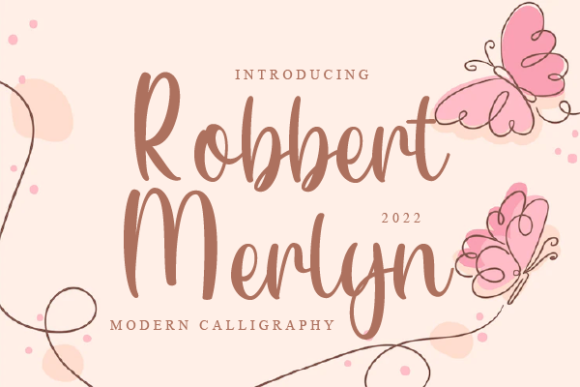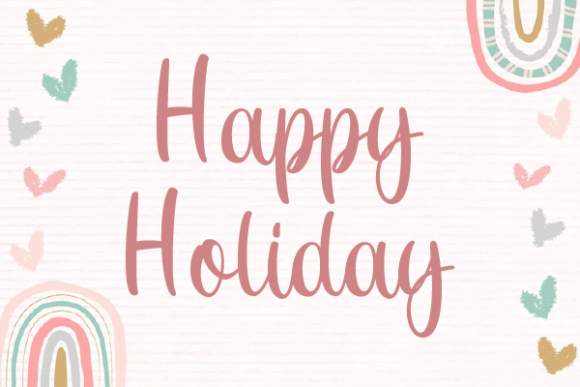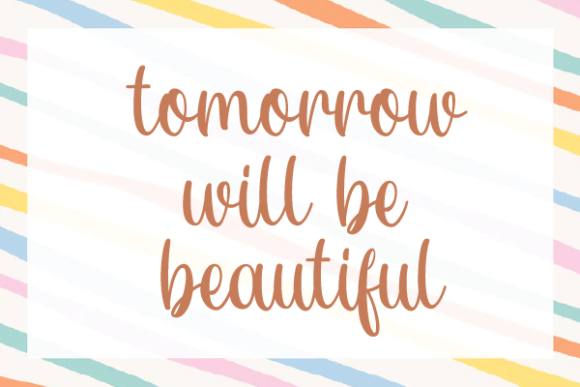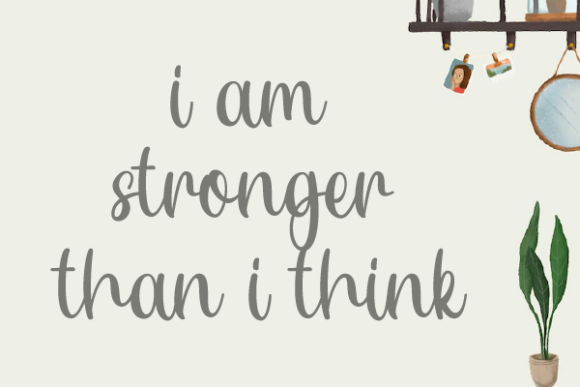
Robbert Merlyn Font
About Robbert Merlyn Font
“Robbert Merlyn” is a charming script font that introduces playful and captivating characters, creating a delightful and whimsical feel. As these characters seem to dance along the baseline, this font becomes a standout choice to infuse creativity into your projects.
The playful nature of “Robbert Merlyn” is apparent in its lively and dynamic design. The characters exude a sense of movement and personality, making the font suitable for a variety of creative applications. Whether you’re working on invitations, branding, or any other design project, “Robbert Merlyn” brings a unique and engaging quality.
When you add “Robbert Merlyn” to your designs, you’ll observe how it injects a playful spirit, breathing life into your creative ideas. The characters dancing along the baseline create a visual rhythm that adds energy and charm to your text, making your projects stand out with a distinct flair.
Whether applied to posters, social media graphics, or any project that requires a touch of playfulness, “Robbert Merlyn” is a font that captures attention. Its ability to bring a lively and dynamic quality to your text makes it an excellent choice for creating visually appealing and engaging designs.
In summary, “Robbert Merlyn” is more than just a font; it’s a lovely script typeface that elevates your creative ideas with charm and playfulness. Regardless of the project, let “Robbert Merlyn” be the font that adds a delightful and whimsical touch, making each design stand out with its unique character and visual appeal.